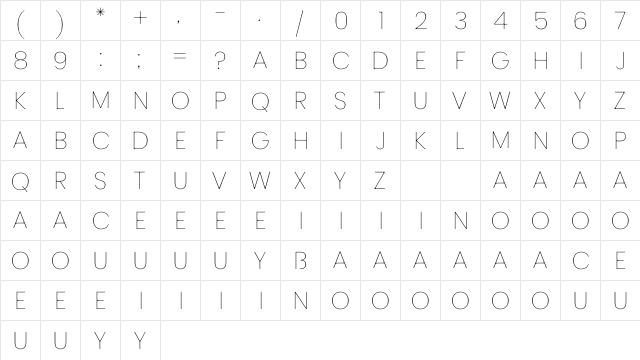
DesirasNonCommercial Regular Font Preview
DesirasNonCommercial Regular
DesirasNonCommercial Regular Font Details
Design Context for DesirasNonCommercial Typeface
DesirasNonCommercial offers clean, dependable letterforms without strong stylistic allegiance, making it a practical choice for designers who need flexibility.